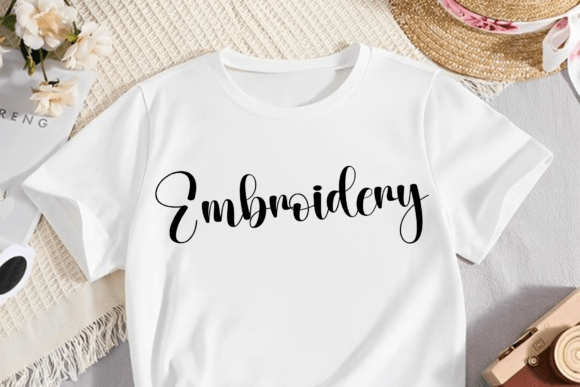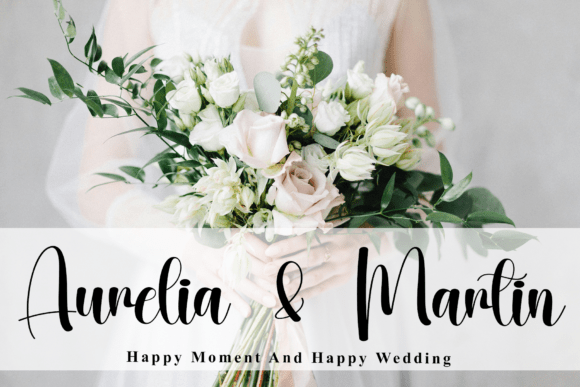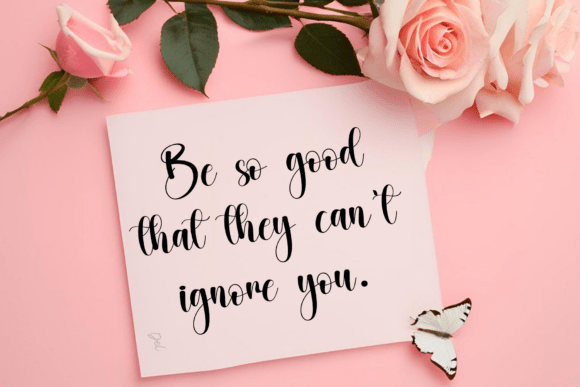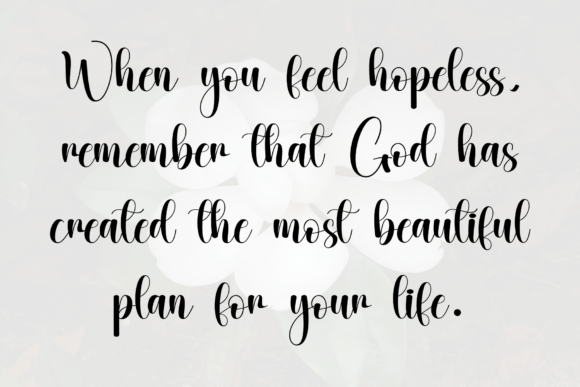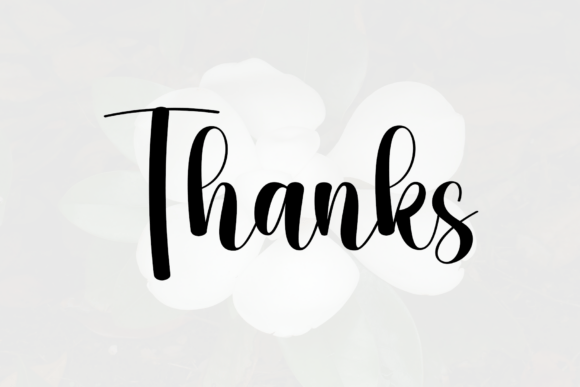
Discover the Timeless Elegance of the Baby Magnolina Font
As a designer, have you ever stumbled upon a font that perfectly captures the essence of your creative vision? For me, that moment came when I laid eyes on the Baby Magnolina Font. Its delicate, flowing strokes and luxurious appearance transported me to a world of high-end branding and sophisticated designs.
The Baby Magnolina Font is a beautiful, handwritten script font that exudes elegance and refinement. Its monoline stroke and varying thickness create a sense of depth and character, making it perfect for projects that require a touch of luxury and romance. Whether you’re designing a wedding invitation, a custom signature logo, or a high-end branding campaign, this font is sure to impress.
For designers, the Baby Magnolina Font is a valuable addition to any toolkit. Its versatility and sophistication make it an ideal choice for a wide range of projects, from elegant wedding invitations to refined branding campaigns. With its timeless elegance and luxurious appearance, this font is sure to leave a lasting impression on your clients and audiences alike.
Baby Magnolina Font Key Features
- Unique Characteristics: Baby Magnolina Font is a playful, handwritten script font designed for children’s books, nursery decor, and other whimsical projects. Its unique features include swashes, flourishes, and irregular letterforms that add a touch of personality to any text.
- Font Style: Handwritten, Script, Playful
Baby Magnolina Font Review
Overall, I think Baby Magnolina Font is a cute and playful typeface, perfect for projects that need a touch of whimsy. Here’s my honest review:
- ✨ The rounded edges and soft curves give the font a friendly and approachable feel.
- ✨ The varying line widths and subtle texture add a layer of visual interest and depth.
- ✨ The font is well-suited for use in children’s book illustrations, nursery decor, and other projects where a gentle, soothing aesthetic is desired.
- ⚠️ The font may not be the best choice for projects that require a strong, bold, or dramatic font.
- ⚠️ The varying line widths and texture may not translate well to small font sizes or high-resolution printing.
- ⚠️ The font’s rounded edges may make it difficult to read at very small sizes or in certain contexts.
Overall, I think Baby Magnolina Font is a lovely choice for projects that need a soft, gentle touch. While it may not be suitable for every project, it’s a great option for those who want to add a touch of whimsy and playfulness to their design.
Getting the Most Out of Baby Magnolina Font
Here are some tips to get the most out of Baby Magnolina Font:
- Experiment with different font sizes and colors to create visually appealing designs.
- Combine Baby Magnolina Font with other fonts to create a unique and creative look.